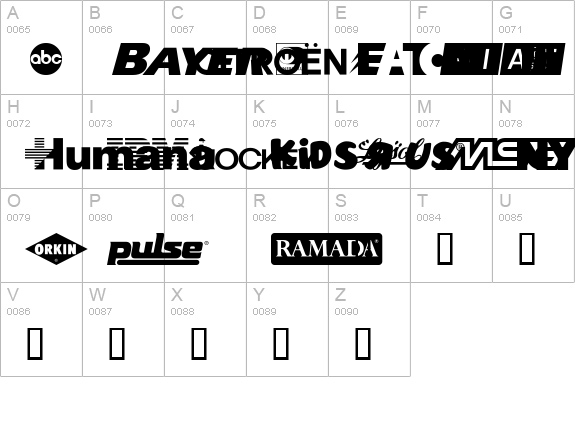
CORPart™II Sample font is a modern and stylish typeface that exudes sophistication and elegance. With its clean lines and unique letterforms, this font is perfect for a variety of design projects, from branding to editorial design. The sleek and contemporary look of CORPart™II Sample font makes it a versatile choice for both digital and print applications. What sets CORPart™II Sample font apart is its versatility and readability, making it suitable for a wide range of design needs. Whether you're creating a logo, designing a website, or crafting a poster, this font will add a touch of class to your project. Best of all, CORPart™II Sample font is available for free download at FontsMarket.com. This means you can easily access this stylish typeface and incorporate it into your designs without breaking the bank. Don't miss out on the opportunity to elevate your projects with the sleek and modern CORPart™II Sample font. Download it today and see the difference it can make in your design work!